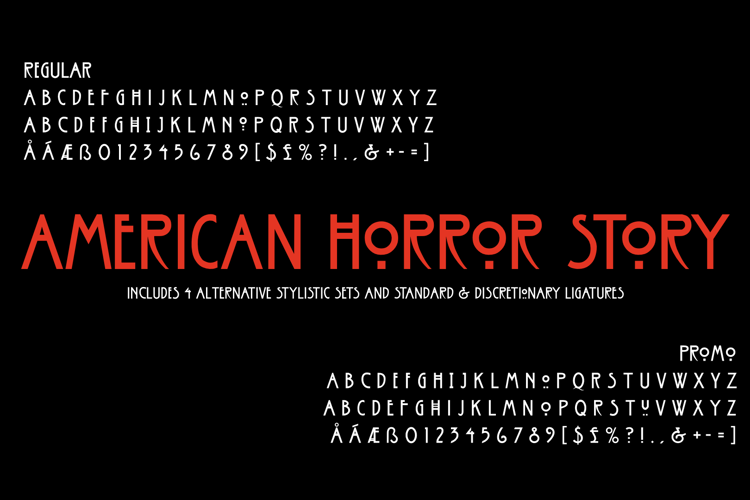
American Horror Story Font
by KELGE Fonts
Promo Style
About American Horror Story Font
Murder Houses, Asylums, Covens, Hotels, Lost Colonies, and Cults. America's got a horror story for every occasion...
@CelestialStarMan Hi. I've retooled the font so it'll hopefully be more consistently proportioned. Thanks for your feedback!
@Shirley both are separate typefaces or font styles within the font family "American Horror Story". One is called American Horror Story Regular, the other American Horror Story Promo.
Both the lowercase and uppercase "O" are thinner in volume than the rest of the alphabet.
Both the lowercase and uppercase "D" is out of proportion from the rest of the alphabet.
I can see what you tried to do here, but it's probably just better off buying the official font rather than put up with inconsistent lettering.